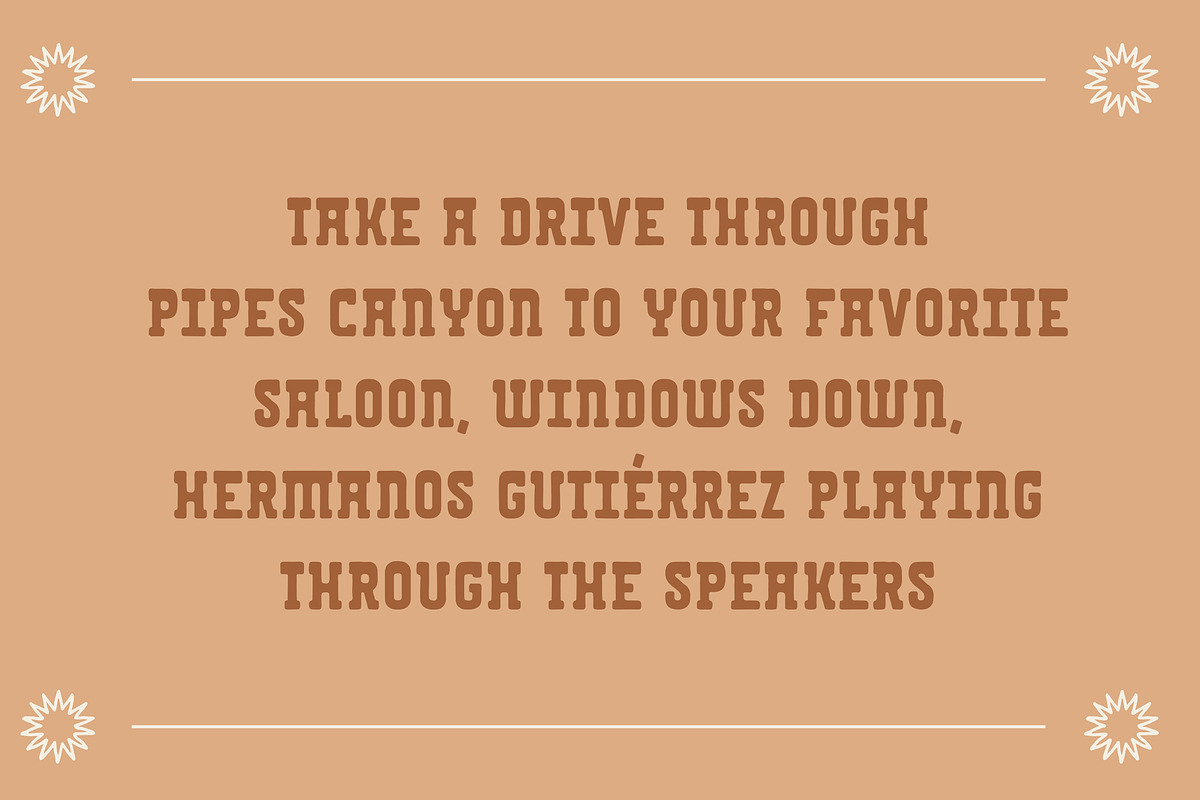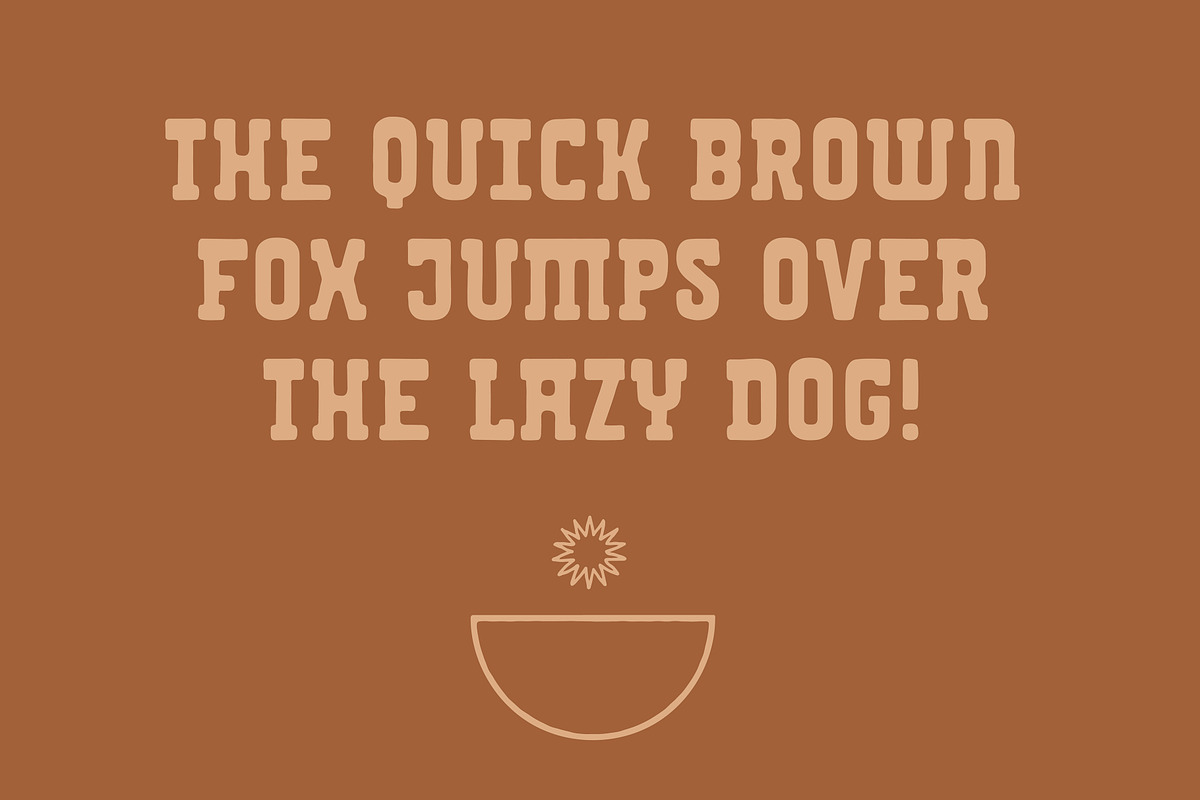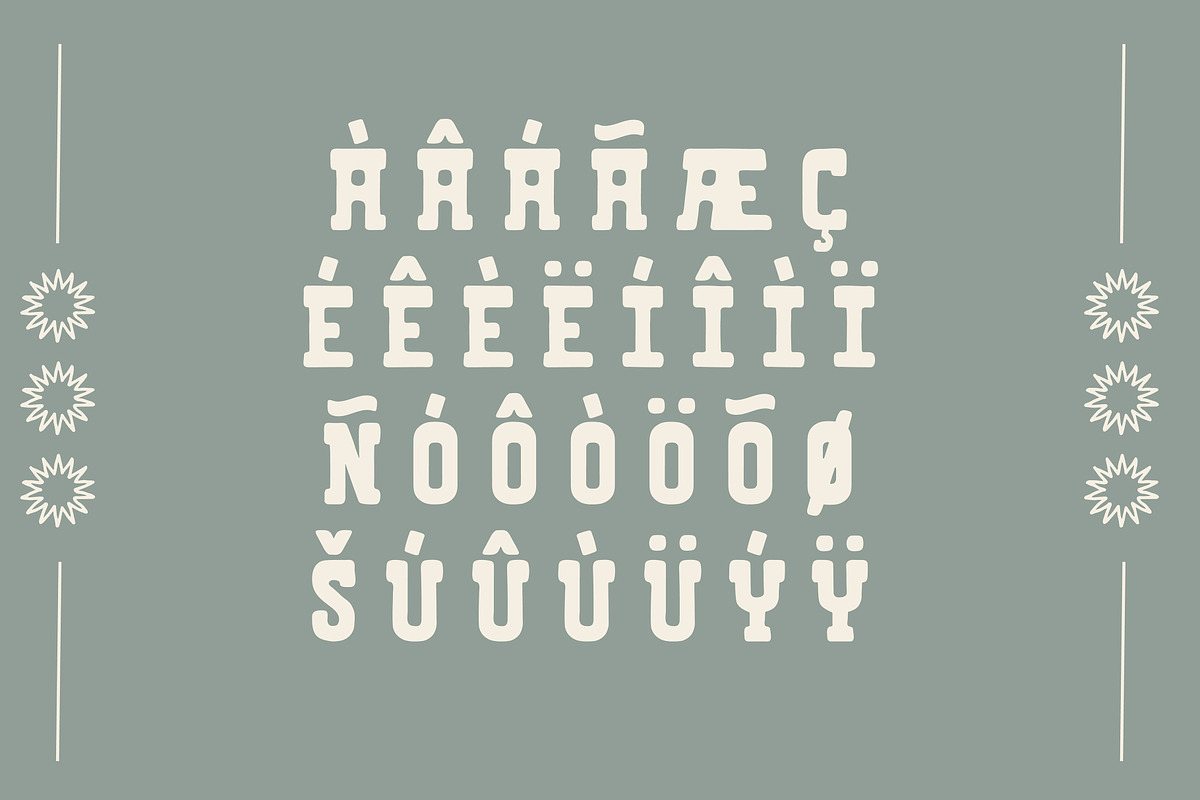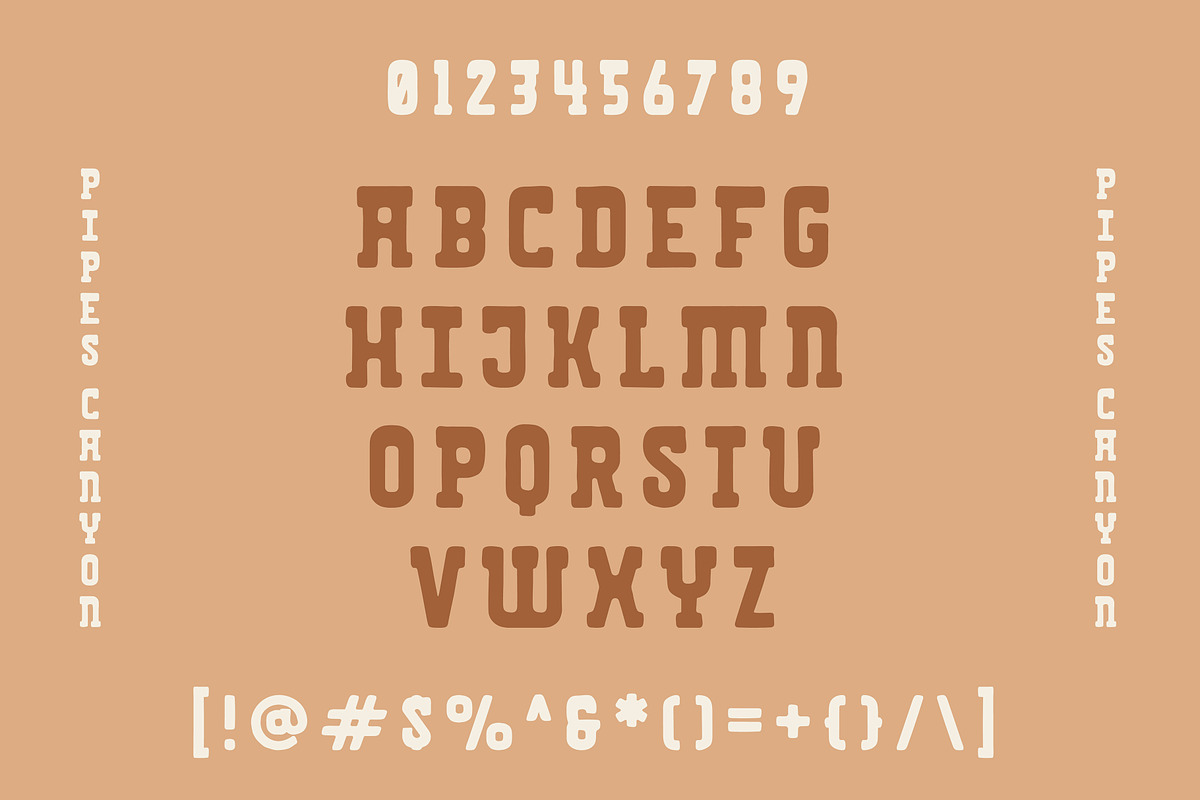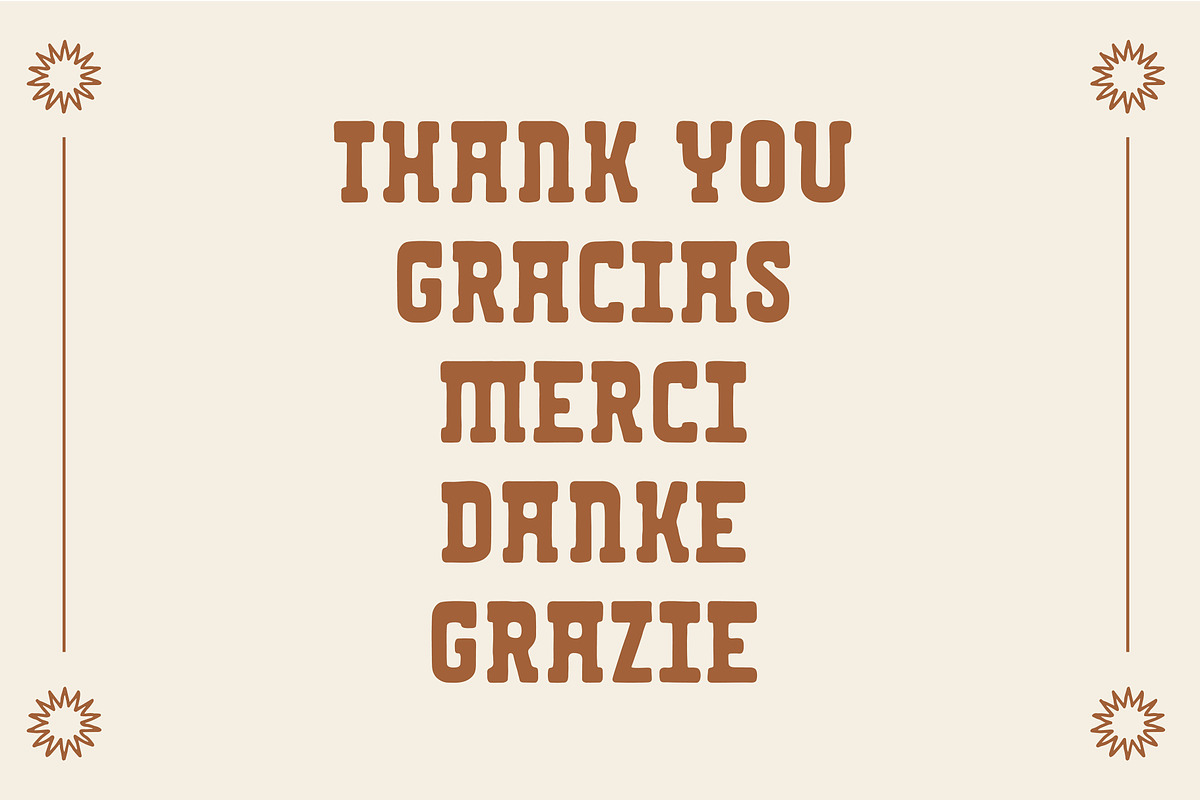
Pipes Canyon | Modern Western Font
Pipes Canyon is a hand-drawn slab serif display font inspired by the California high desert, blending modern with a western style that feels both fresh and timeless.
Picture a long stretch of open road; sun-kissed mountains in the distance; windows rolled down with a warm breeze and the kind of quiet that stays with you long after the noisy world returns.
This font is ideal for brand identity and design projects that call for a desert or retro aesthetic, including typography for album covers, concert posters, apparel, merch and more.